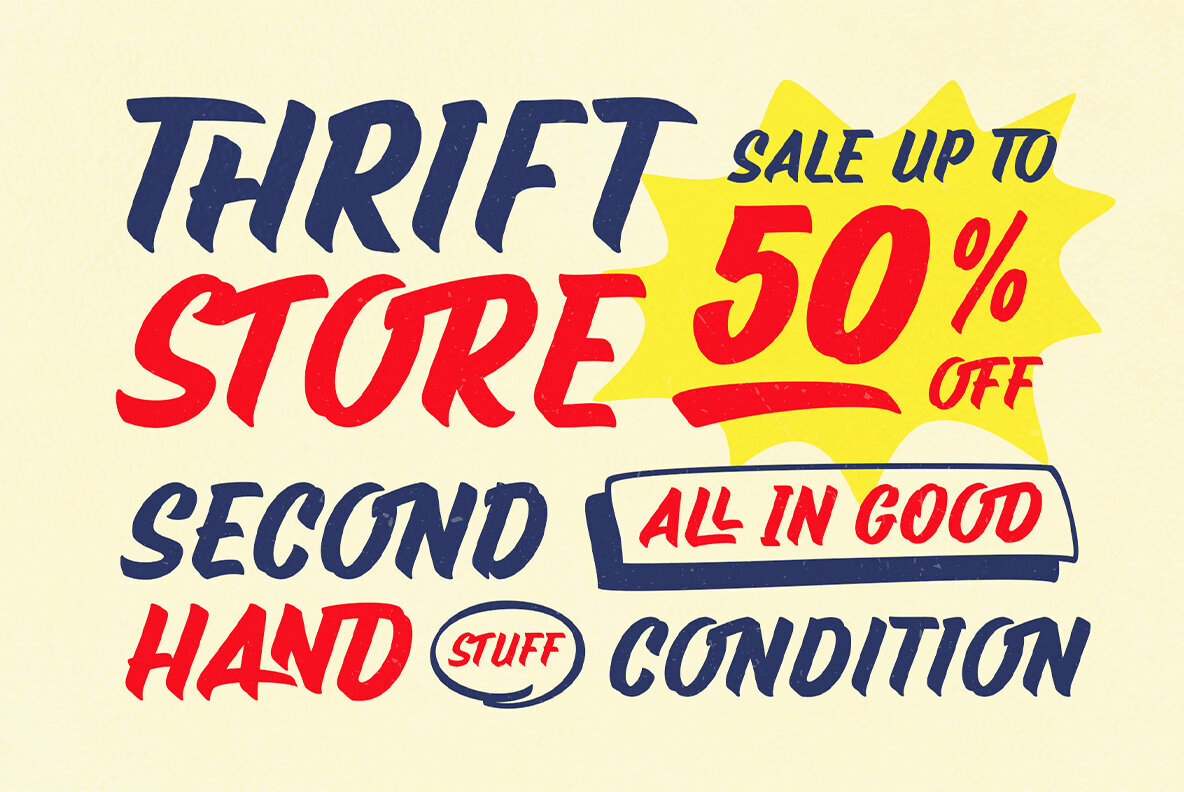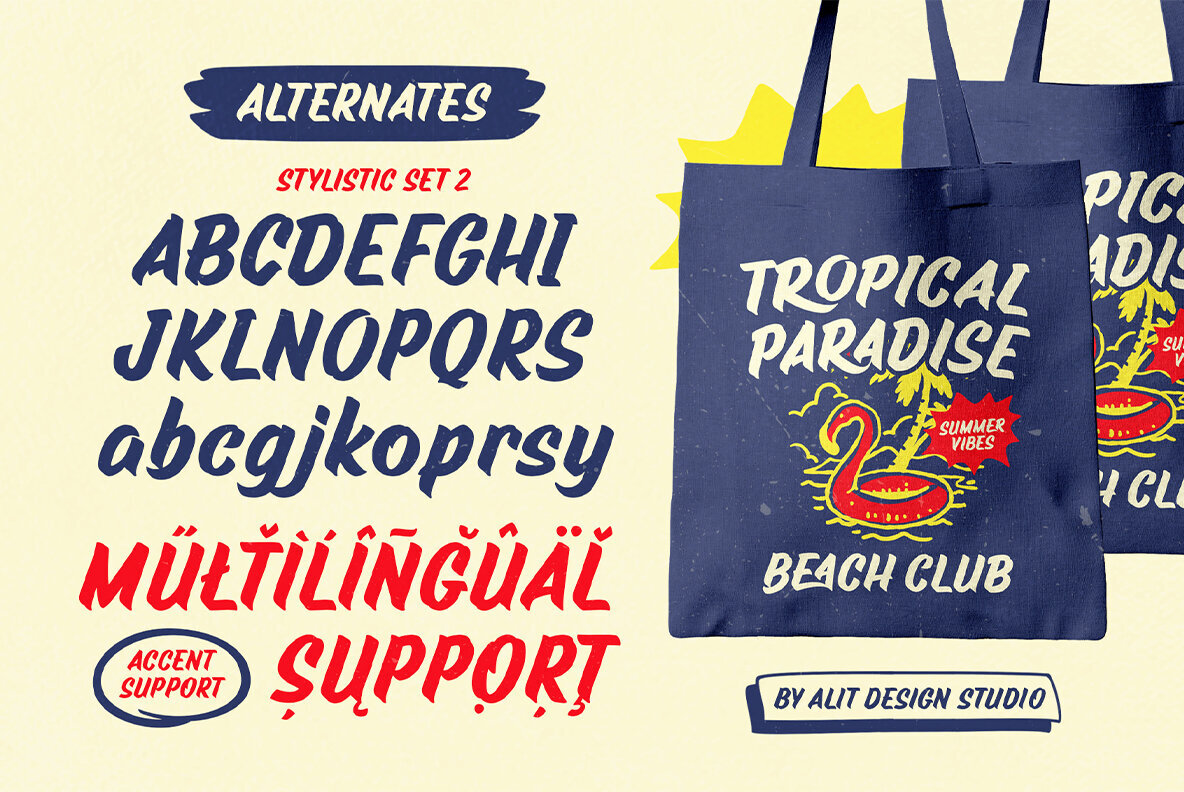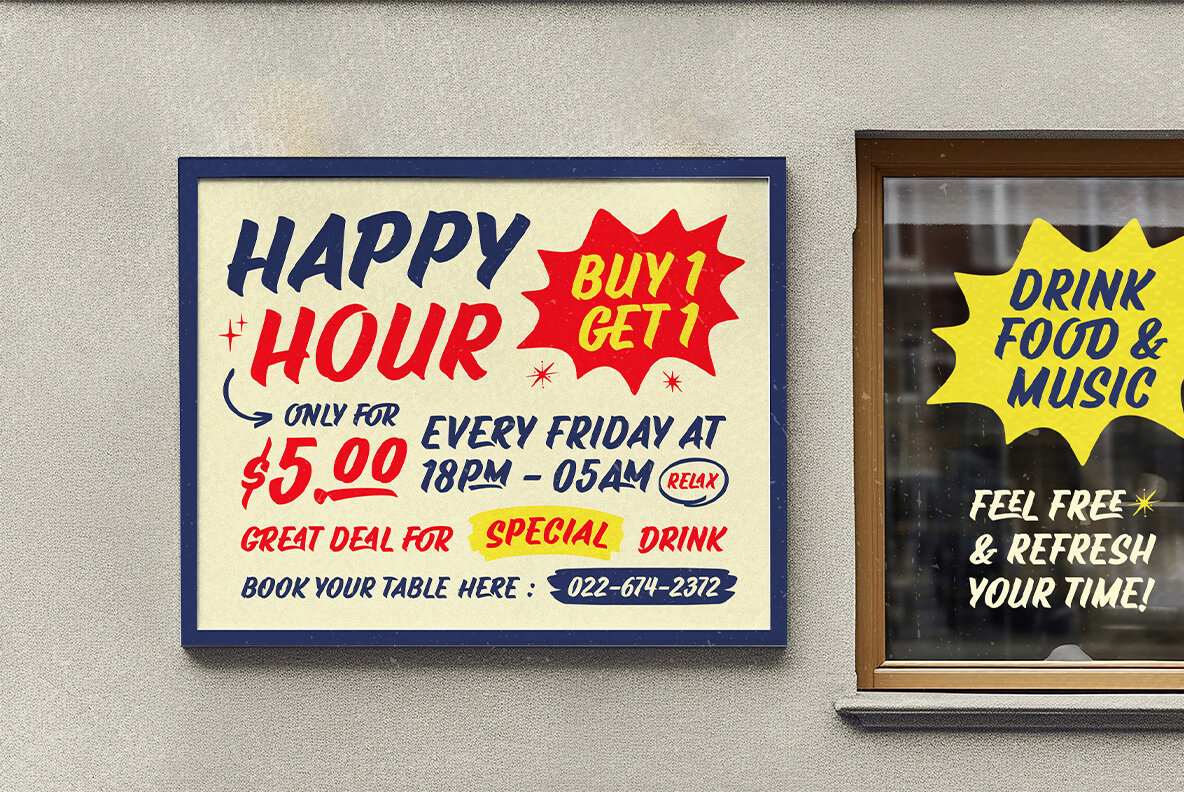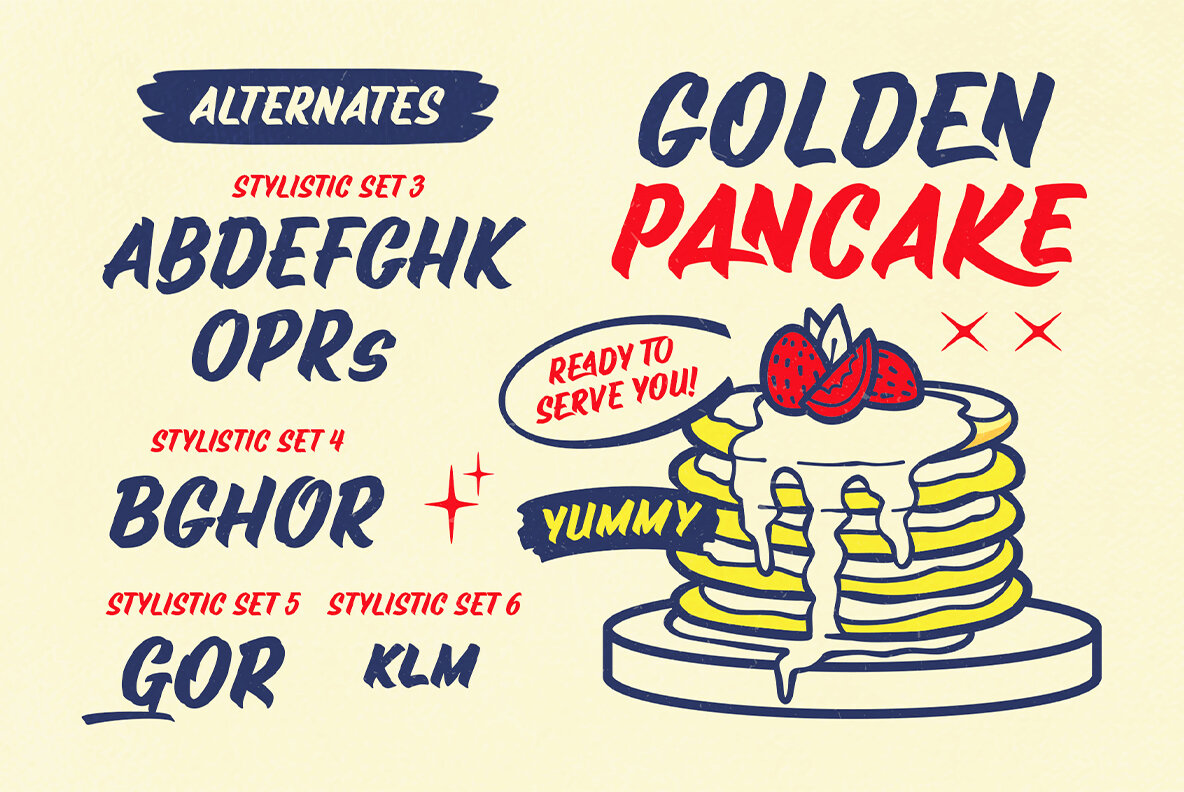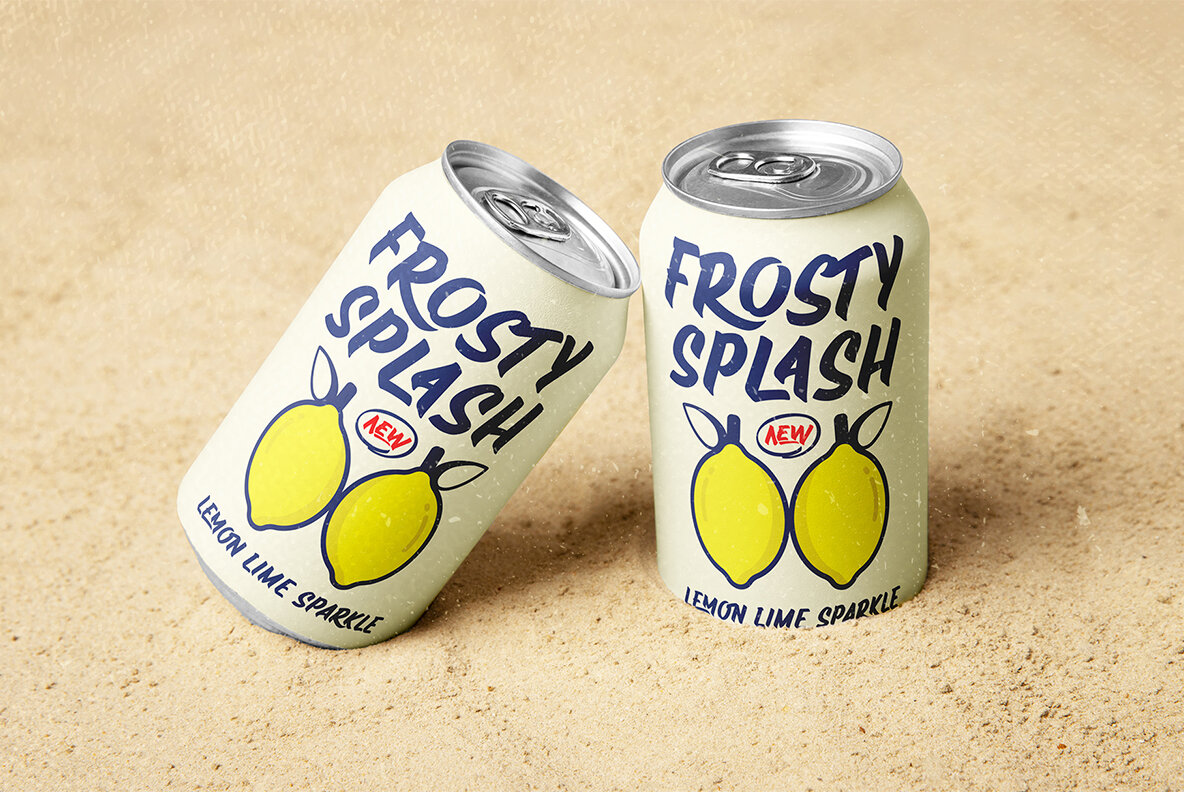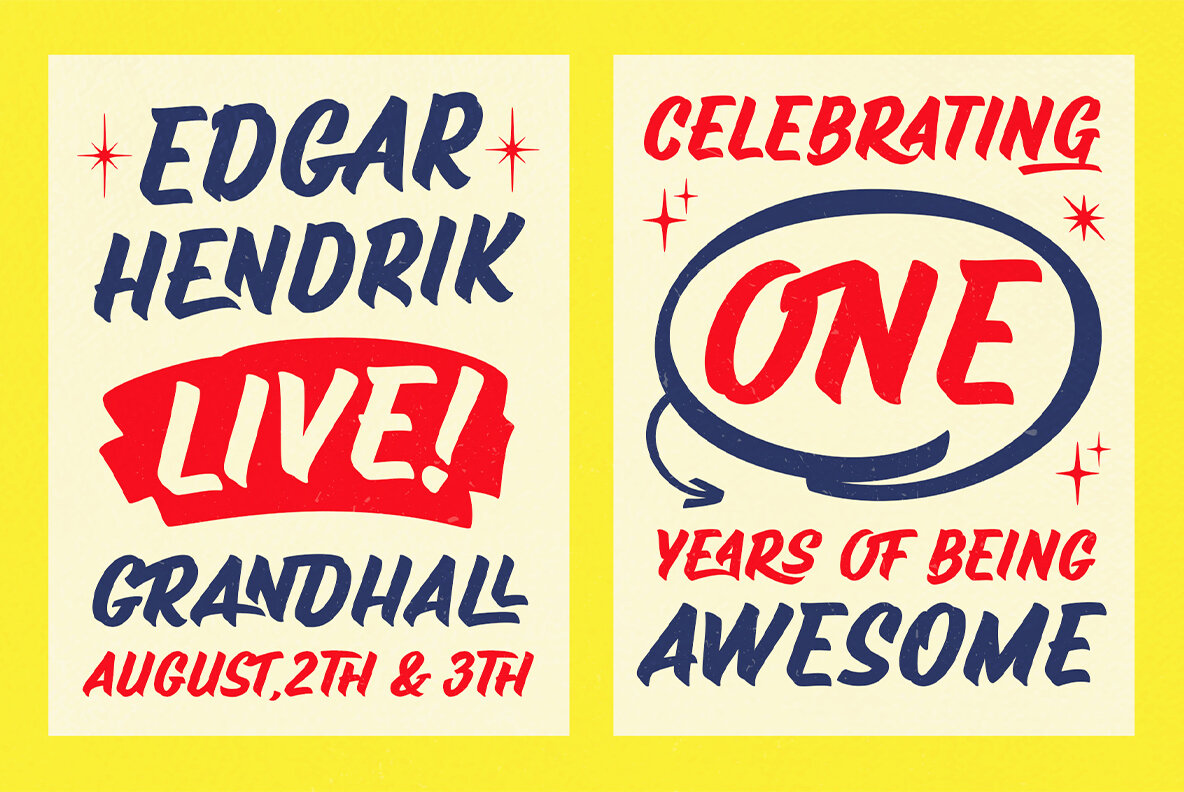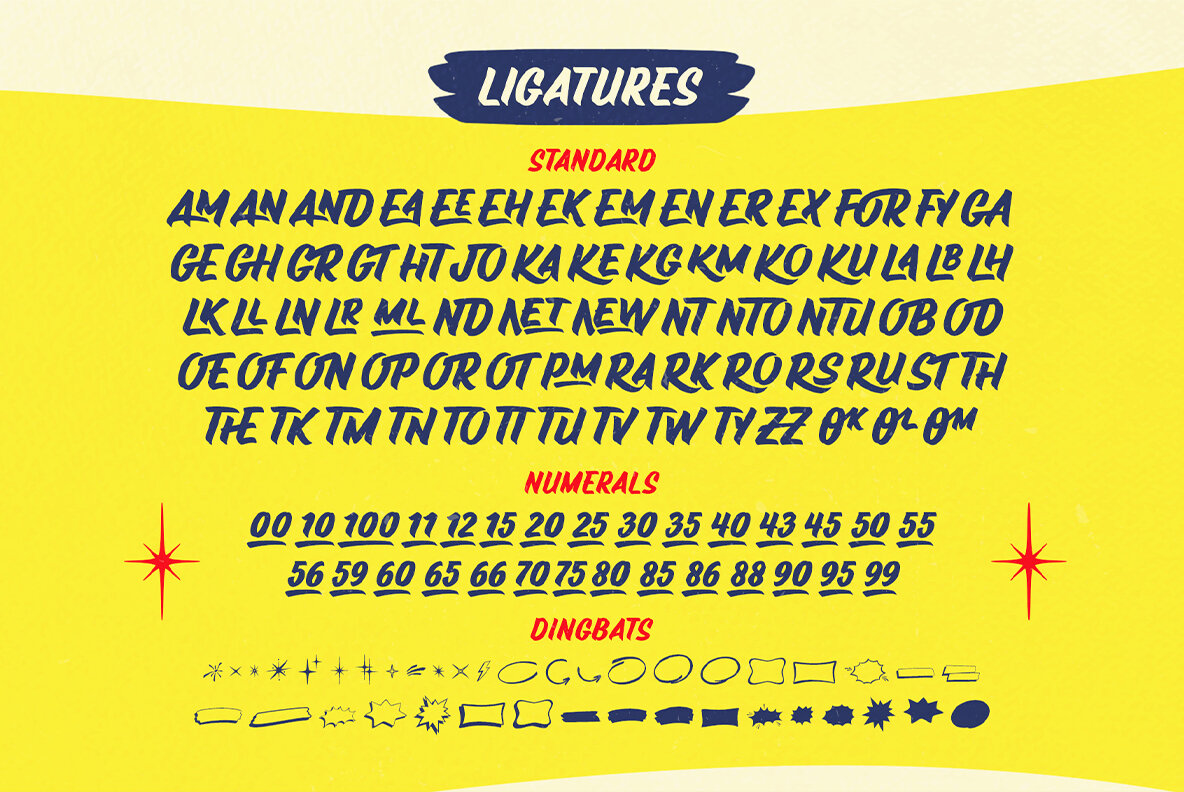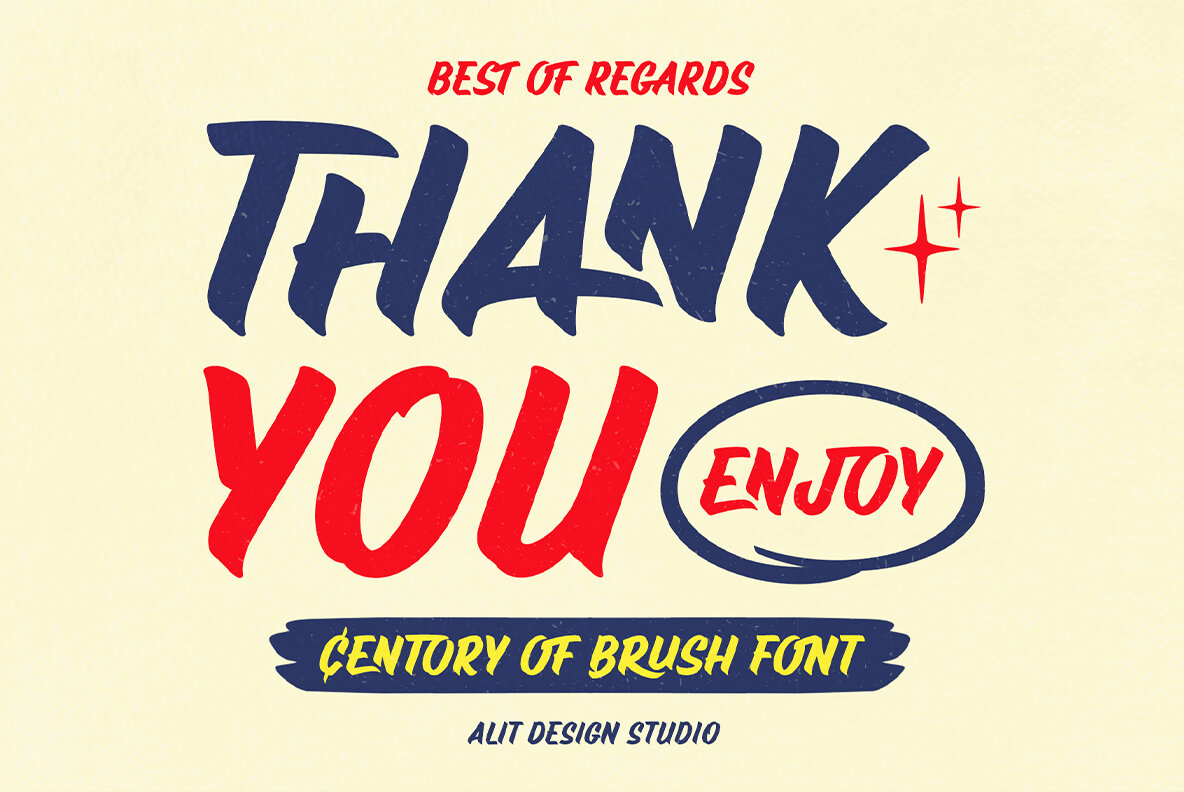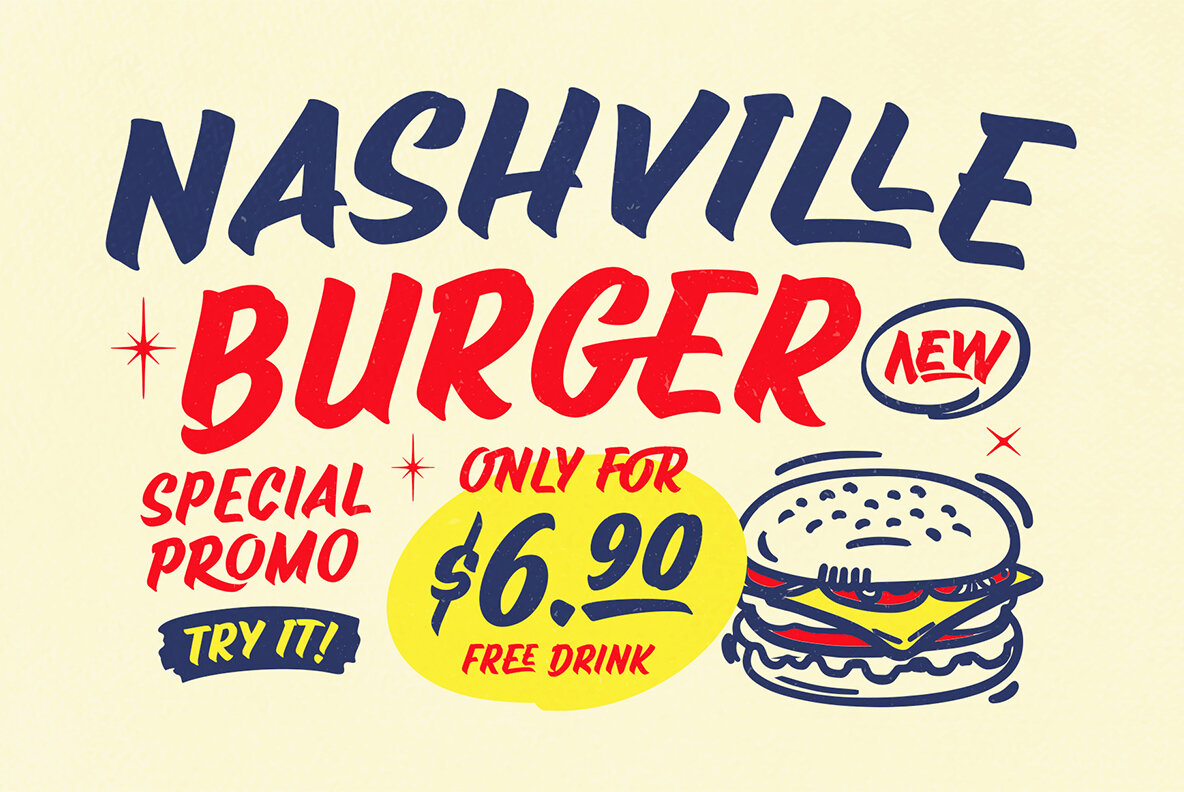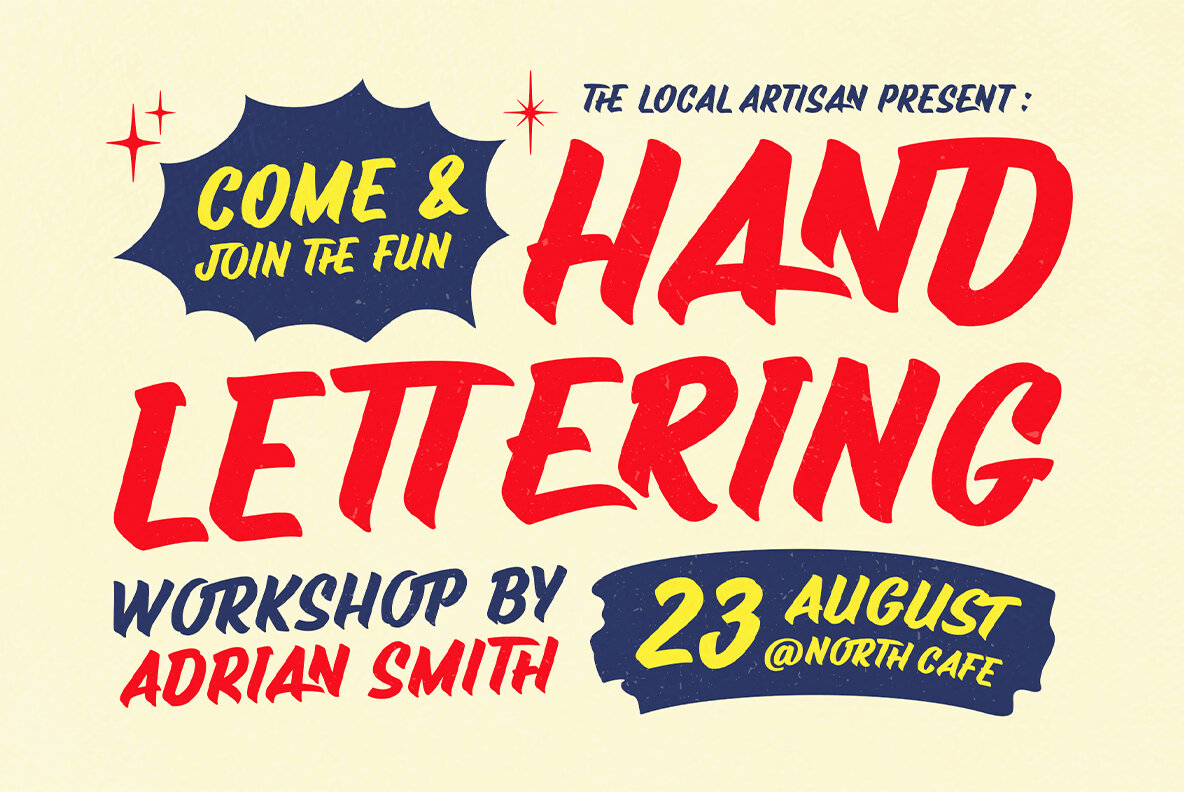
Century of Brush Font
Centory of Brush Regular
Discover the exquisite charm of "Century of Brush," a smooth-brush typeface that infuses any project with a touch of vintage elegance. This font is inspired by classic handwritten scripts, delivering nostalgia while maintaining modern utility. With 723 meticulously designed glyphs, it offers creativity and flexibility, allowing for unique combinations and expressive designs. Each letter can be customized with stylish alternates and natural ligatures, ensuring a seamless and artistic flow across all compositions.
Century of Brush offers PUA encoding, granting easy access to all its distinctive alternates and symbols without requiring special software. It also provides multilingual support, making it adaptable to a wide array of languages. Complement your designs with included dingbats, perfect for adding flair to logos, labels, and decorative accents. Whether used in digital or print projects, this font is ideal for vintage logos, packaging, wedding invitations, and editorial designs. Enjoy the harmonious blend of classic sophistication and contemporary style with Century of Brush.